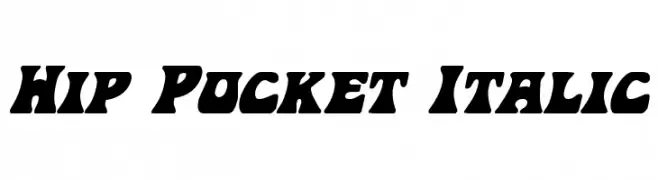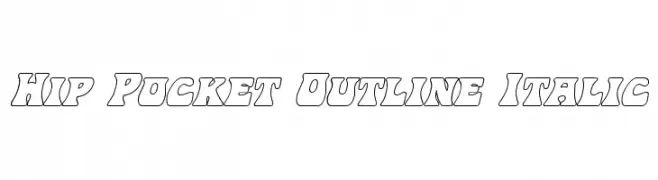
A playful, bold font with rounded, bubbly characters and a hand-drawn feel.
A bold, playful font with a cartoonish style and strong presence.
A bold, playful font with a three-dimensional bevel effect and whimsical design.
A bold, playful, and condensed font with a whimsical style.
A bold, staggered italic font with dynamic and playful characteristics.
A bold, playful font with a shadow effect and slight italicization.
A bold, playful font with thick, uneven strokes and a cartoonish style.
A bold, playful font with a chunky, expanded style and a retro comic book feel.
A bold, condensed, and italicized font with a playful, energetic style.
A bold, expanded, and italicized font with a playful, cartoon-like style.
A bold, playful font with a staggered, dynamic design.
A bold, playful font with a shadow effect, perfect for fun and engaging designs.
A bold, playful font with a cartoon-like, energetic style.
A bold, distorted italic font with a chaotic and energetic style.
A bold, playful italic font with a dynamic and whimsical style.
A bold, jagged font with an irregular, monster-themed design.
A bold, playful font with a three-dimensional shadow effect and cartoonish style.
A bold, staggered, and italicized font with a playful and dynamic style.
A bold, playful font with irregular shapes and a dynamic, whimsical style.
A bold, playful font with a dynamic, wavy appearance.
A bold, textured font with a distressed, vintage appearance.
A modern, hollow geometric font with clean lines and rounded edges.
A modern italic font with smooth curves and a dynamic appearance.
A modern, geometric font with rounded edges and balanced spacing.
A modern, hollow, geometric font with a striking outline effect.
A bold, rounded font with smooth curves and a modern geometric style.
A modern, geometric font with bold, clean lines and a futuristic style.
A bold, italicized font with a modern and playful style.
A playful, decorative font with bold, rounded letters and dotted edges.
Bold, playful display font with irregular, hand-drawn contours.
Icon-based font featuring diverse watch and clock illustrations.